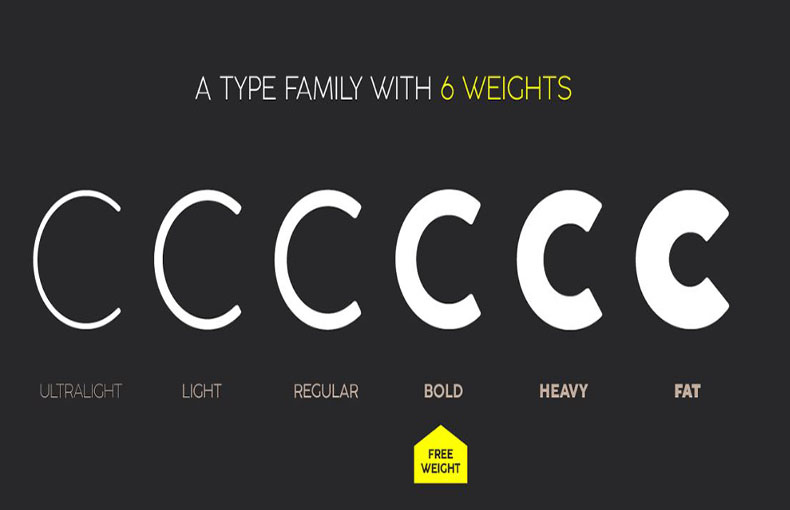
Coco Gothic Font is a basic sans-serif typeface designed by Zetafonts, a well-known Italian type foundry.
It comes in six weights with matching italics and features an extended character set with open type support for small caps, ligatures, alternates, European languages, Greek, and Cyrillic alphabets.
A revised version was released in 2017, which includes 12 alternatives and 12 small caps weights for a total of 36 fonts ready to solve your design problems.
Visual adjustments, gently rounded corners, and a minimalistic design style have softened and made more contemporary the cold, geometric designs typical of those modernist typefaces.
The nickname of Coco Chanel, a celebrated fashion figure, inspired the name of the typeface family.
The ease of use and versatility of Coco Gothic make it a great option for text in both body and headline sizes and for both large and small sizes.
This outstanding textual design is perfect for creating websites, blogs, and a range of other pertinent planning goals.
It is ideal for many different purposes, including book covers. Use this typeface to produce stunning headlines, posters, banners, magazine covers, invites, book layouts, album art, websites, and video game designs.
Overall, Coco Gothic is a well-designed font that fuses utility with a contemporary look. It is a useful addition to any designer’s font library due to its adaptability and legibility, which make it a fantastic choice for a number of design tasks.
Coco Gothic Font supports 103 different languages.
The stylish and modern Coco Gothic font was created for usage in a variety of creative projects, including logos, posters, and websites. It is renowned for having geometric shapes and crisp lines.
Coco Gothic font is suitable for many design uses, including branding, headlines, print materials, and digital designs. In small and large quantities, it is versatile and attractive.